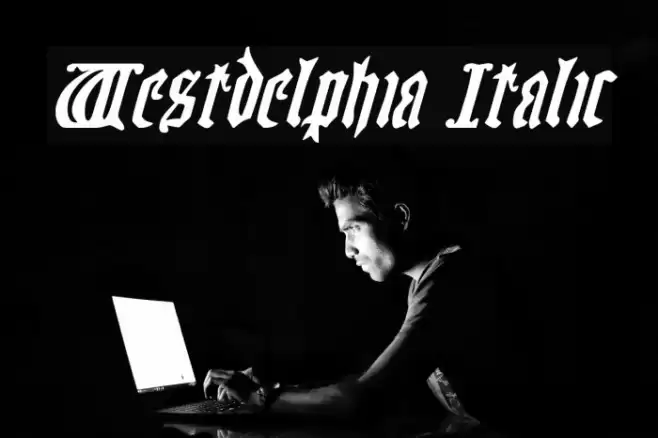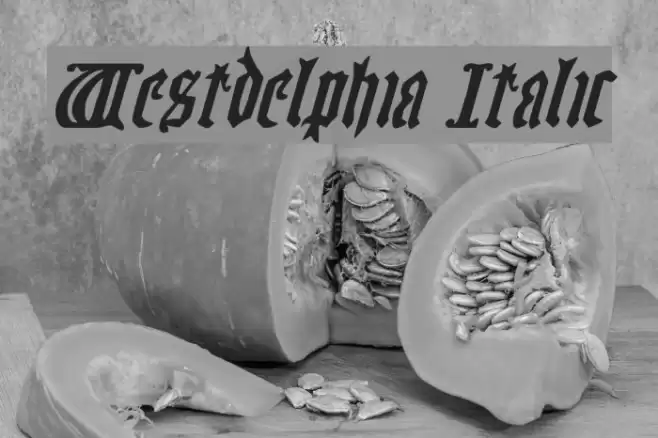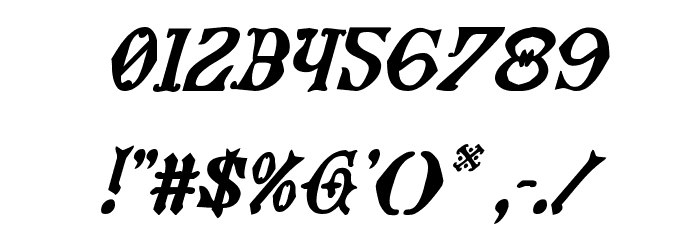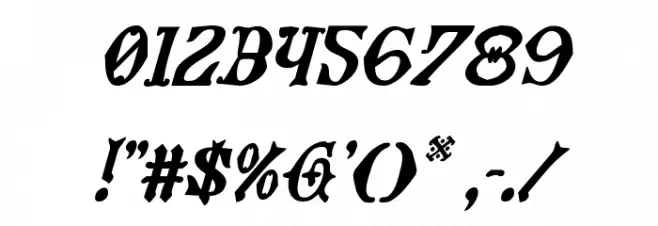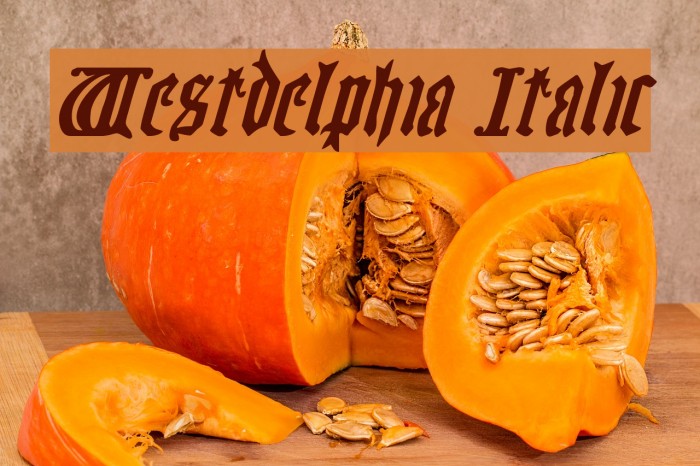
Westdelphia Italic Font
Westdelphia Italic Description
This font features a bold and dramatic style with a distinct blackletter influence. The characters are ornate, with sharp angles and flourishes that give it a gothic appearance. The uppercase letters are particularly elaborate, with intricate curves and pointed edges. The lowercase letters maintain the same decorative style but are slightly more subdued, providing a nice contrast. Numbers and special characters are crafted with the same attention to detail, ensuring a cohesive look across all glyphs. The overall design is reminiscent of medieval script, making it ideal for projects that require a historical or vintage aesthetic.
A bold, gothic-style font with blackletter influences and ornate detailing from Gothic fonts.
- Proposed Projects: Suitable for historical-themed designs, vintage posters, book covers, and branding that requires a dramatic flair.
- Overall Style: Vintage